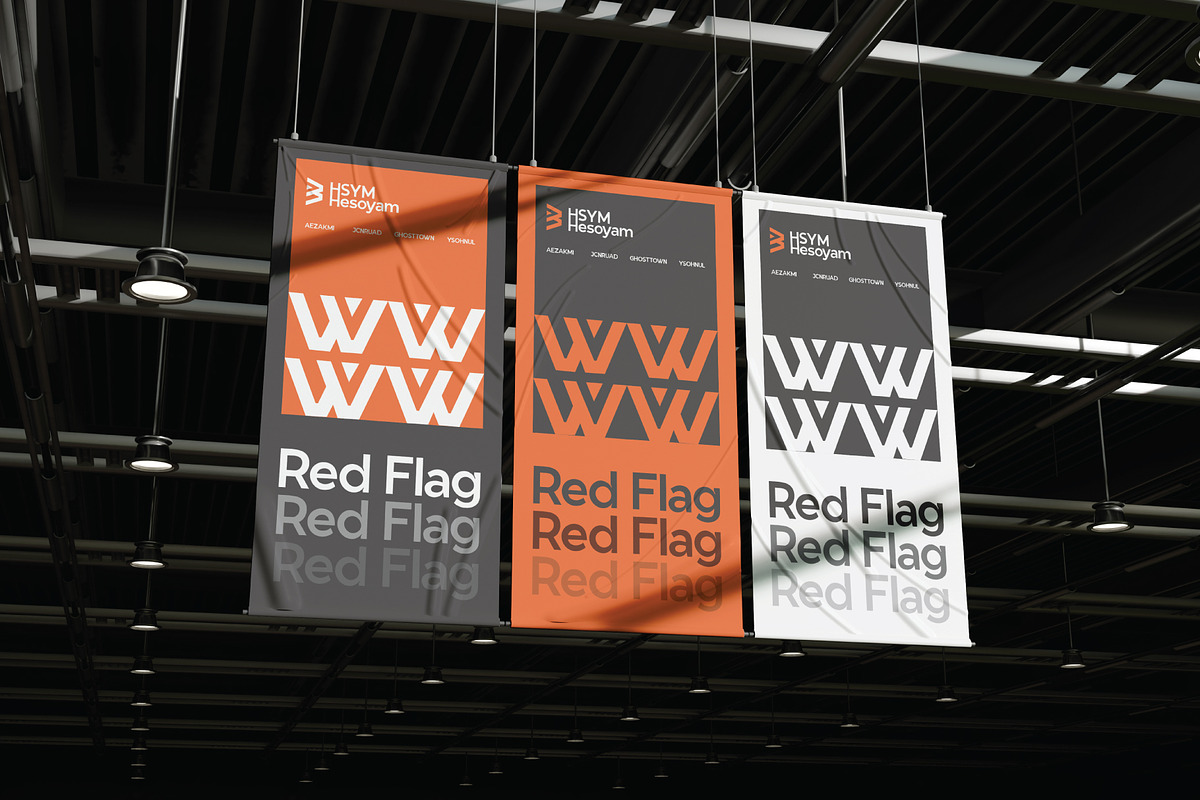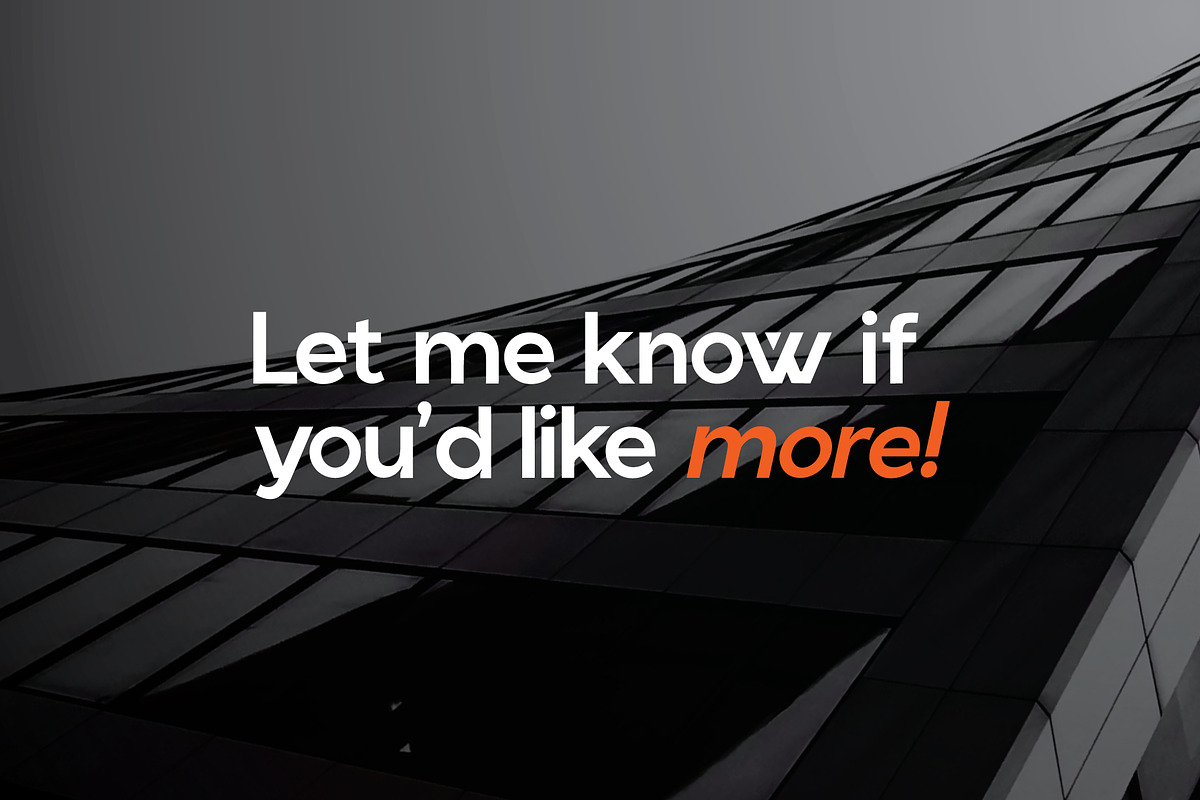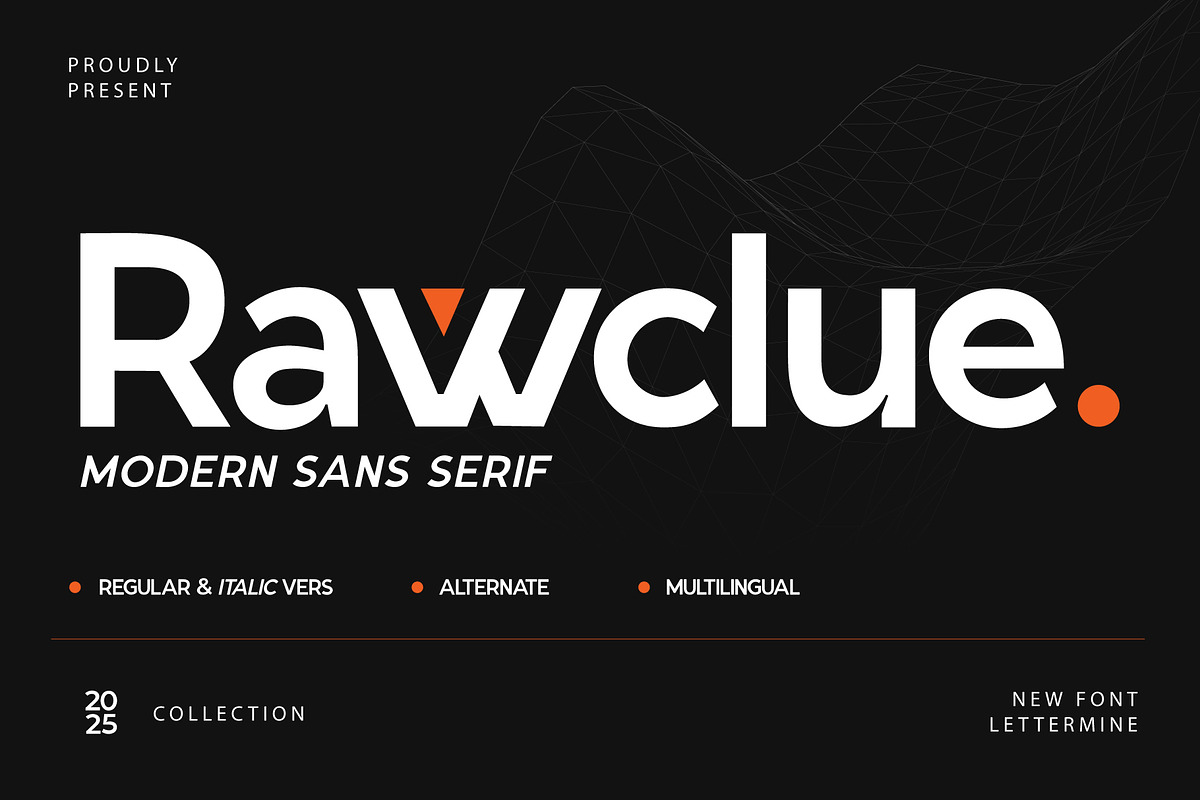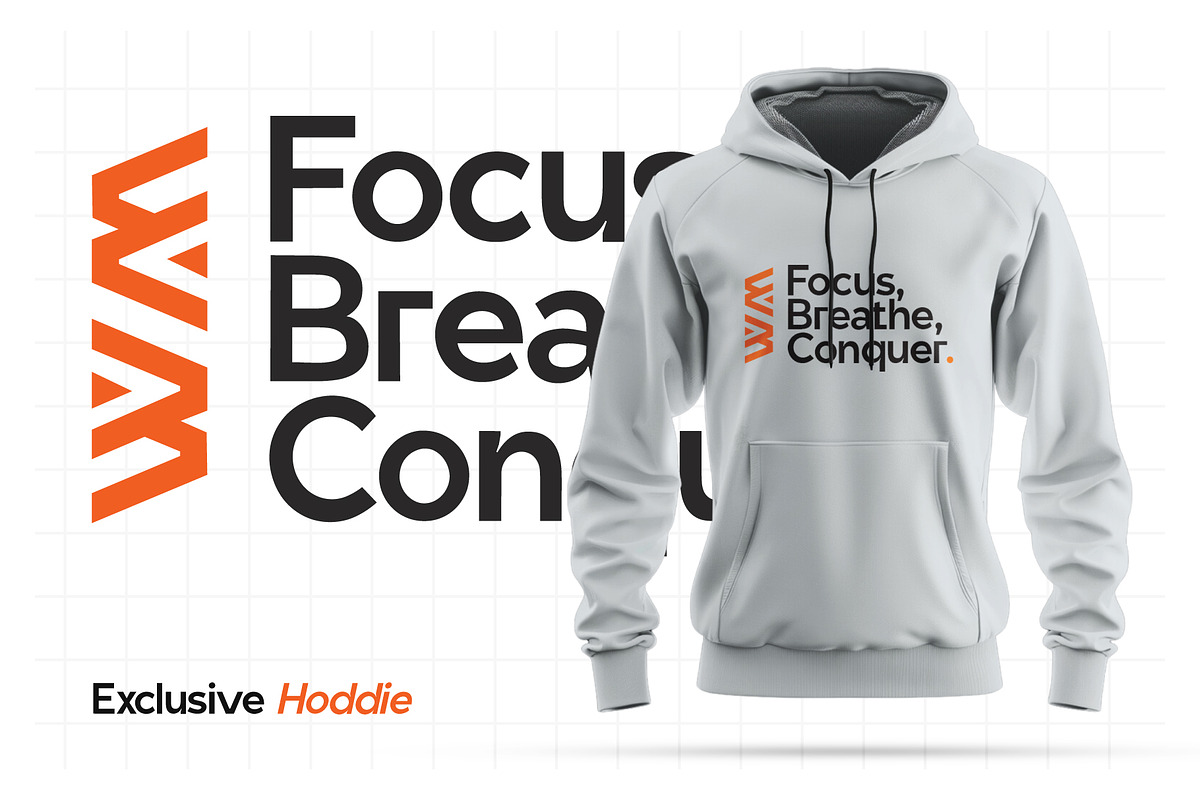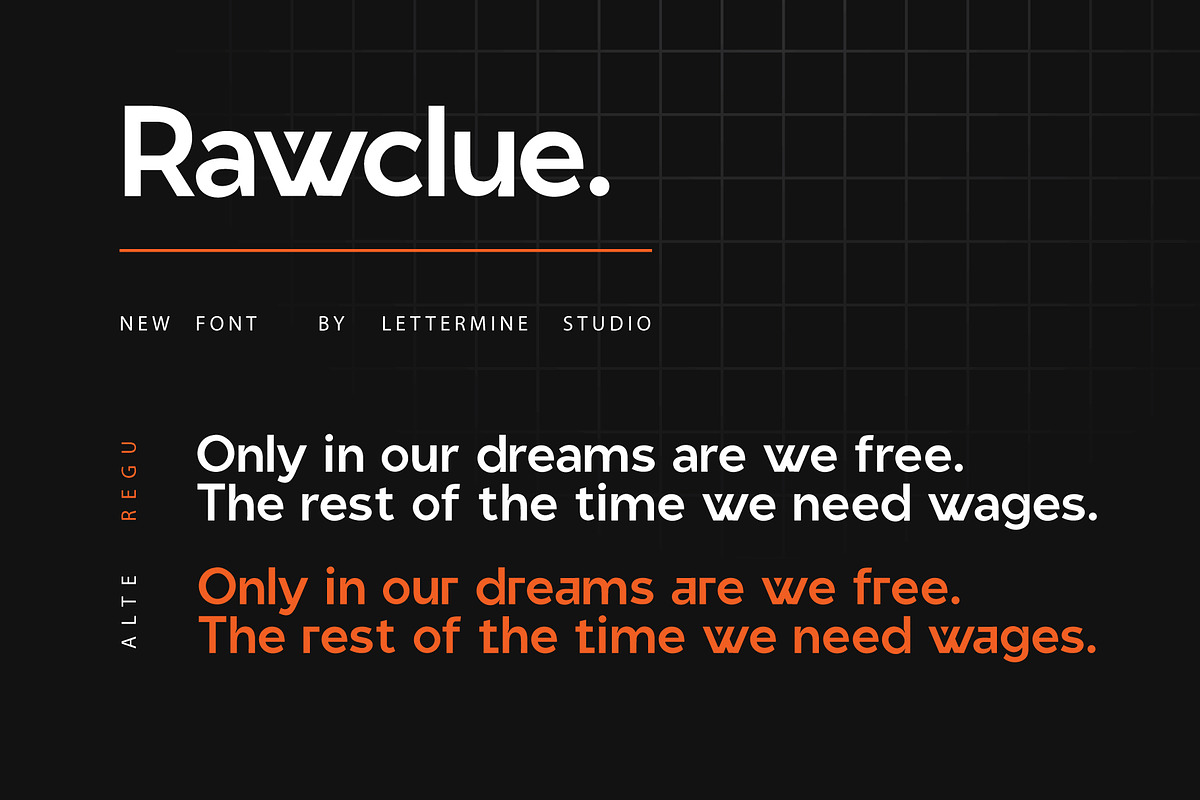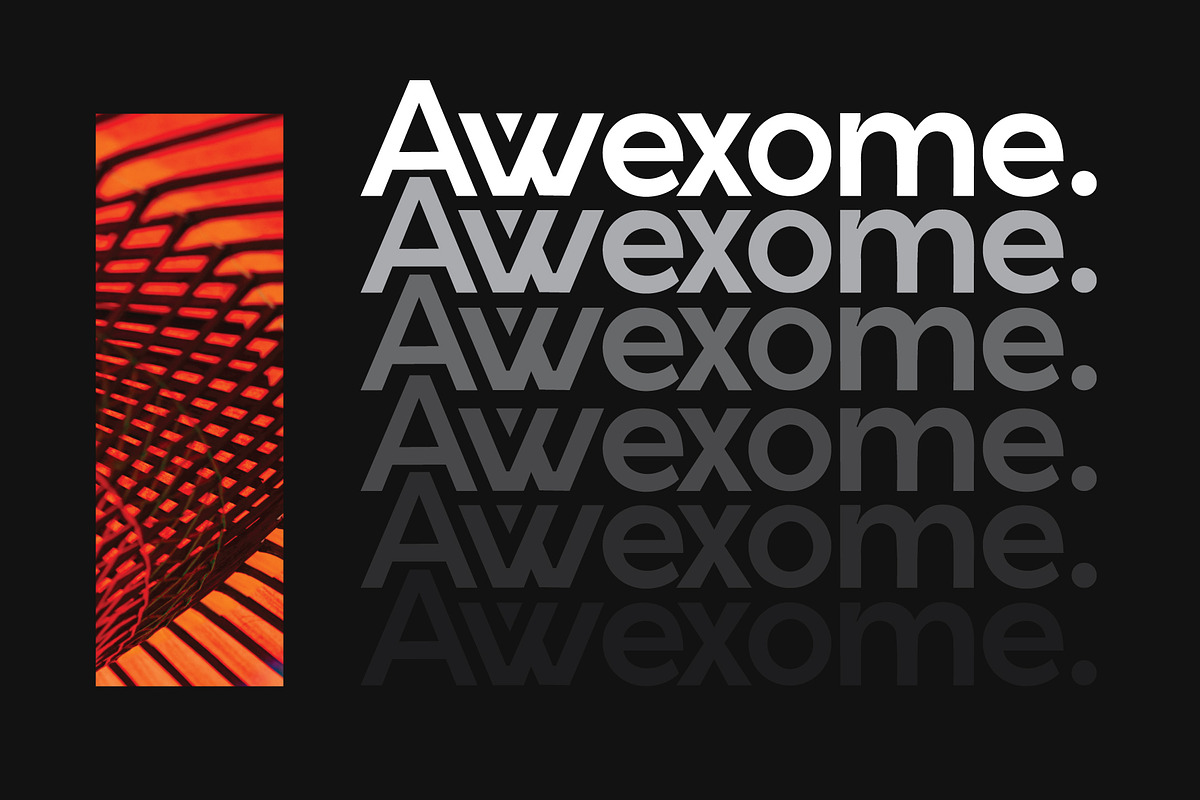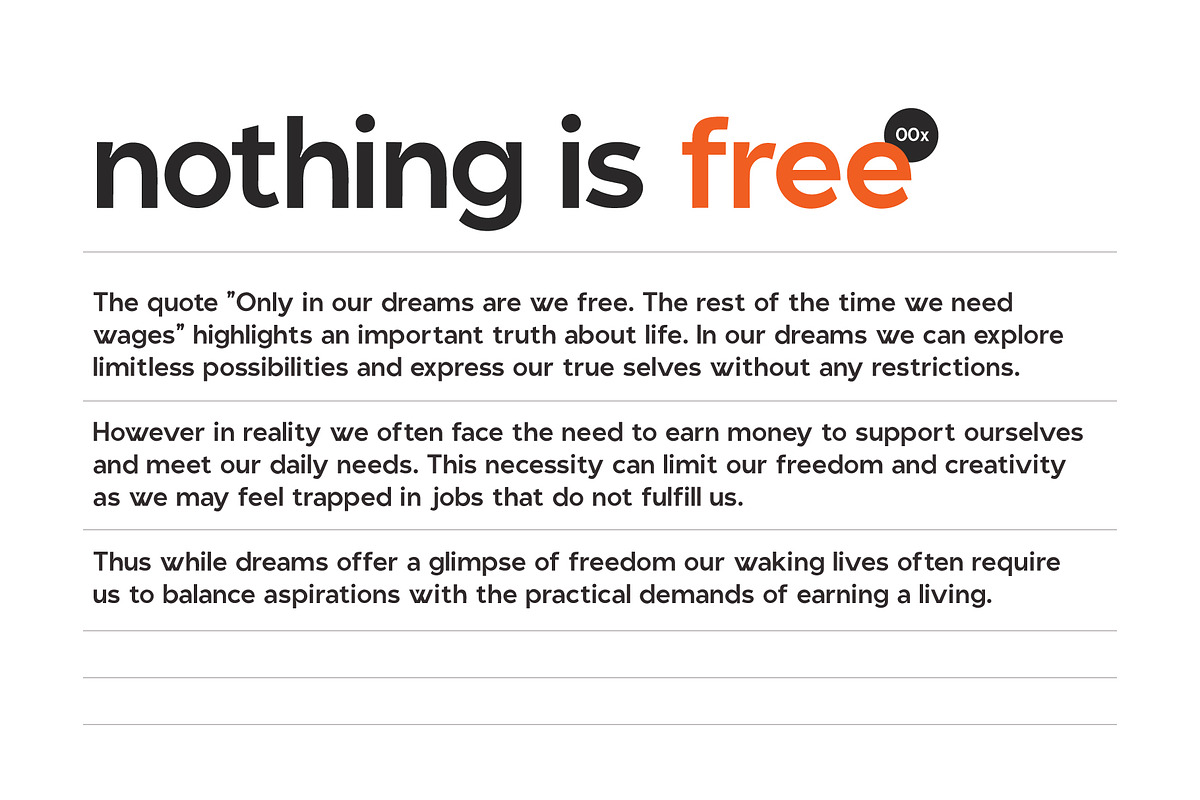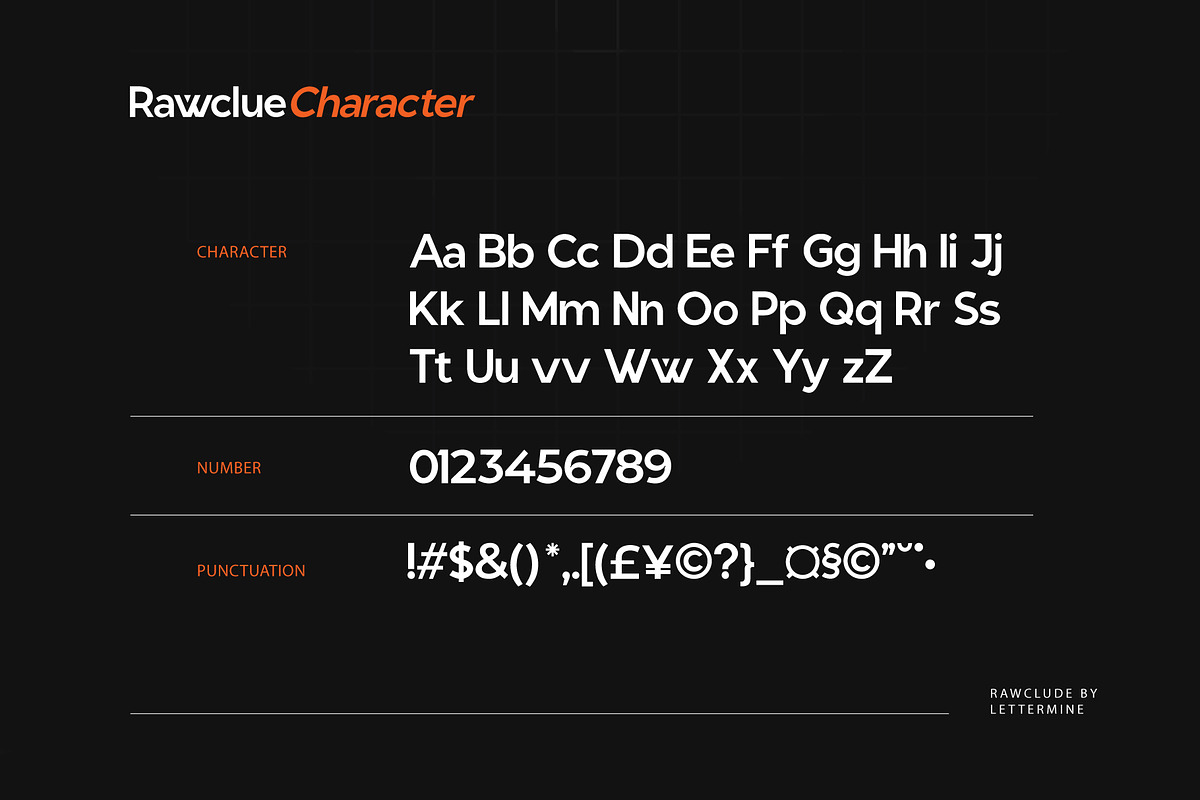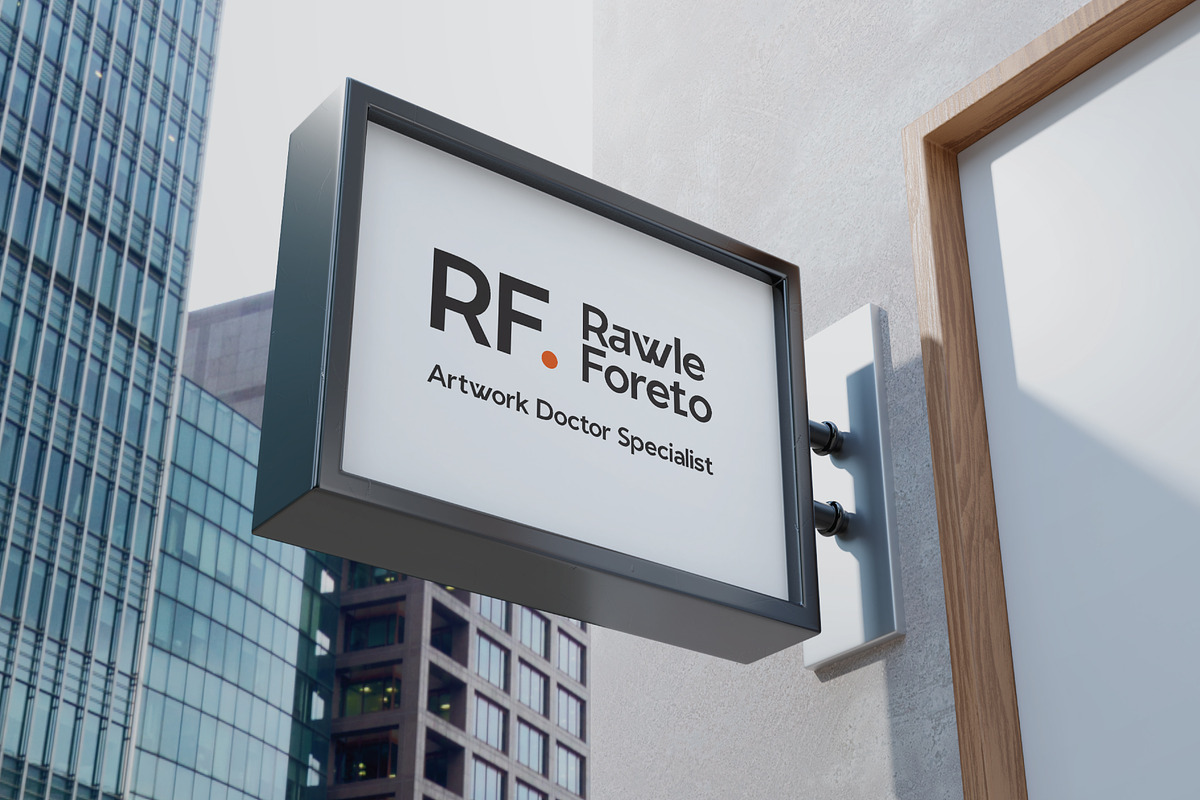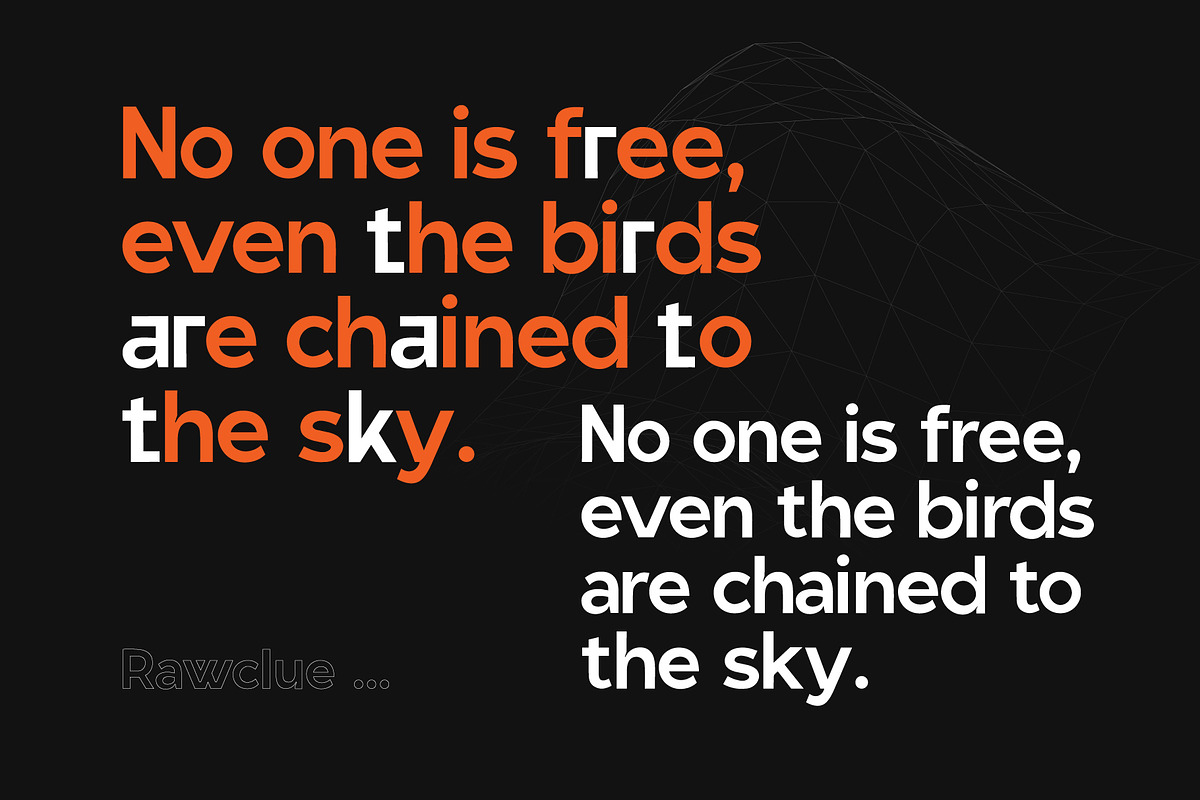
Rawclue - Modern Sans Serif
Rawclue – Modern Sans Serif
Rawclue is a contemporary sans serif font that blends clean aesthetics with modern versatility. Designed for both professional and creative projects, its balanced letterforms ensure clarity and impact. With Regular and Italic styles, Rawclue adapts seamlessly to a variety of design needs, from branding and editorial layouts to digital interfaces.
Lowercase
Functional
Alternative Characters
Regular & Italic Styles
Elevate your designs with Rawclue’s modern simplicity and refined character. Whether you’re crafting sleek logos, engaging social media graphics, or stylish editorial content, Rawclue provides the perfect foundation for a contemporary and polished look.